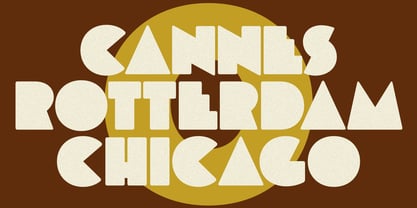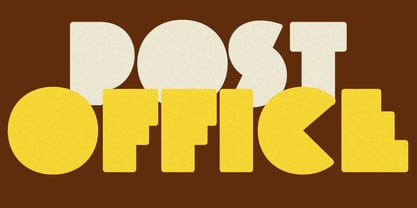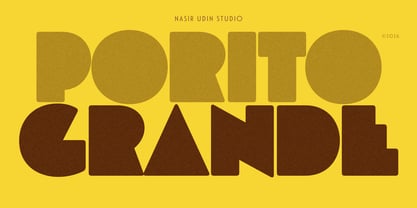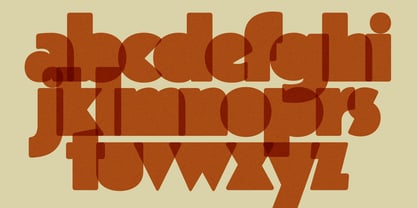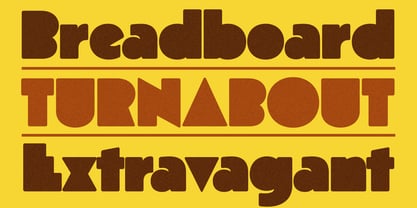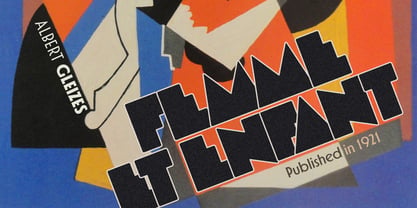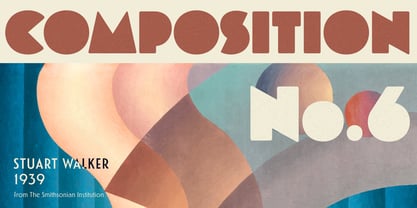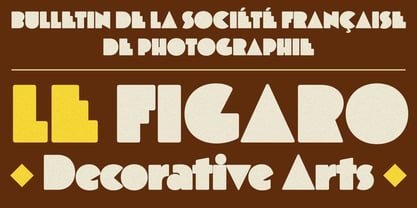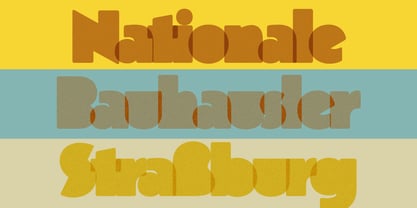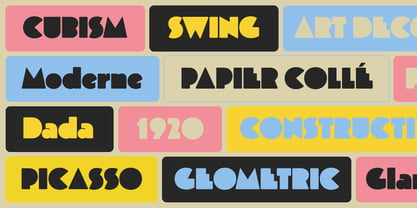
Porito Grande
Porito Grande complements its precursor—the Porito typeface. It's an ultra-bold, ultra-chunky display typeface that oozes retro character and modern playful energy. Built with massive, thick-set letterforms, this font pushes the boundaries of negative space, resulting in an eye-catching, interlocking aesthetic where letters seem to seamlessly puzzle together.
The font leans heavily into a vintage 1970s aesthetic, reminiscent of classic funk, groovy posters, and bold lifestyle branding. The letters are designed with near-zero negative space in mind, making them ideal for tightly tracked headlines, logos, and packaging design where the type itself is the graphic element.
This typeface is an absolute powerhouse for display use. It is perfect for bold branding, editorial headlines, merchandise design, retro-inspired poster art, album covers, and food packaging that demands a friendly, loud, and unforgettable visual presence.
Furthermore, with an extended Latin character set, Porito Grande supports over 200 Latin-based languages, ensuring its broad applicability across diverse themes and styles. This font family is perfect for enhancing visual identity and creating impactful designs.